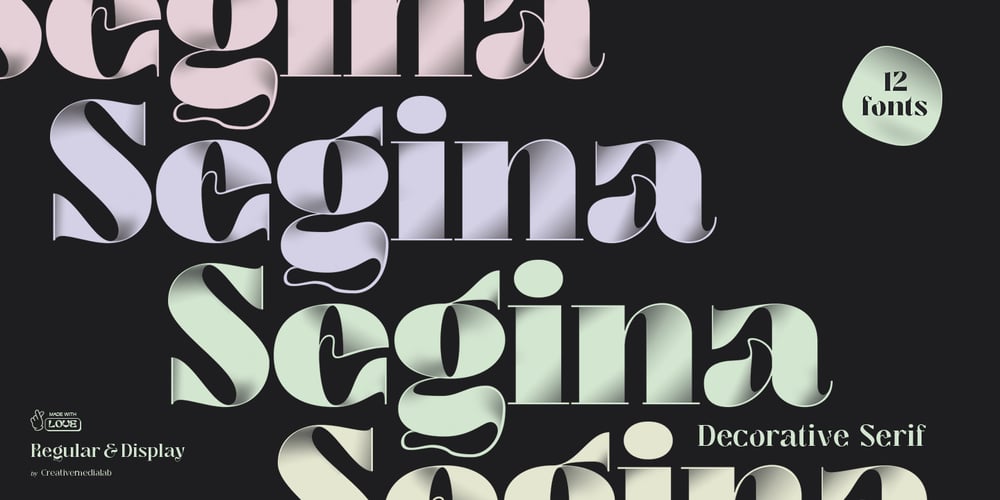
Segina Font Family was designed by Kadek Mahardika and published by Creativemedialab. Segina contains 13 styles and family package options. Segina combines a high-contrast serif with a modern psychedelic font that is slightly wavy unique, and attractive.Segina consists of two Regular and Display options, each containing six weights from thin to Black. And also variable format with two axes, weight, and optical size.Segina has alternative characters that can be combined to create a beautiful heading, title or logotype.